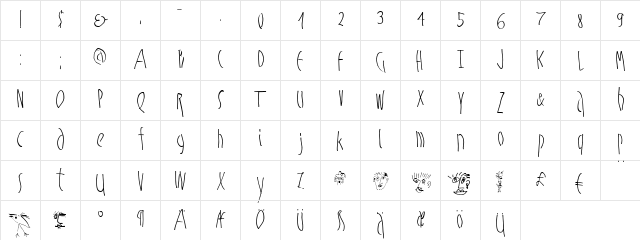
MKSchmalhands Regular Font Preview
MKSchmalhands Regular
Design Context for MKSchmalhands Typeface
MKSchmalhands brings a calligraphic fluidity to the page — its connecting strokes and expressive curves give it an unmistakably human quality.